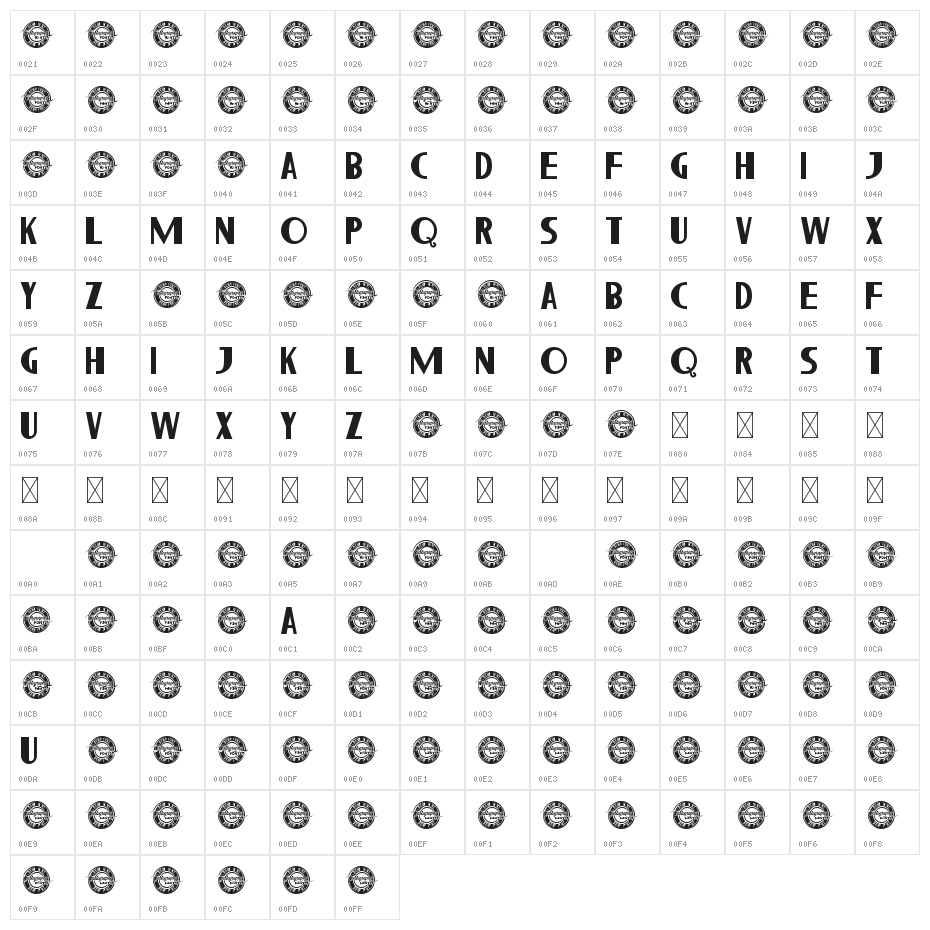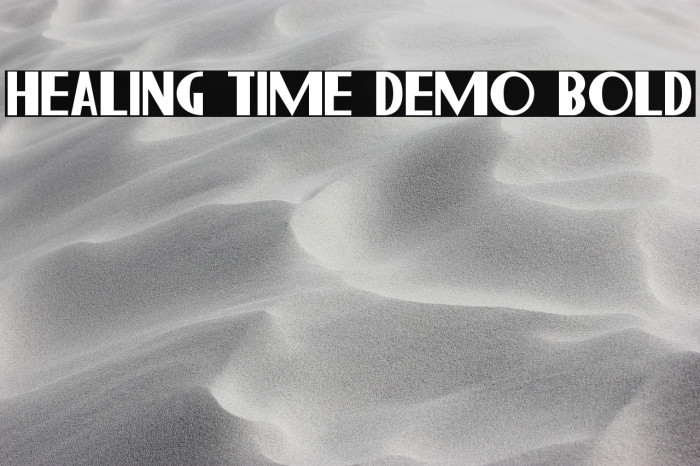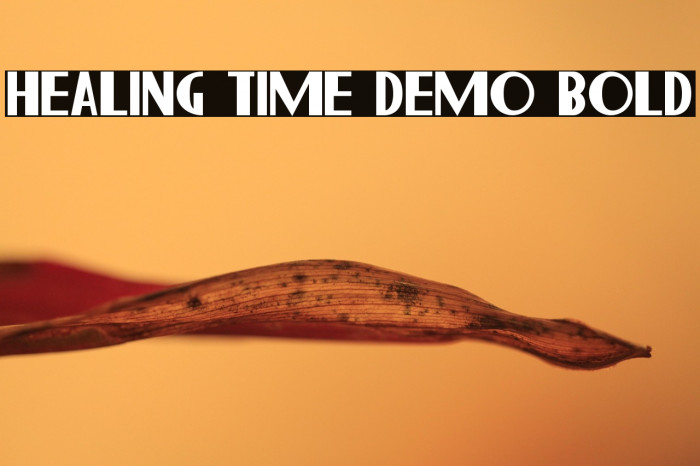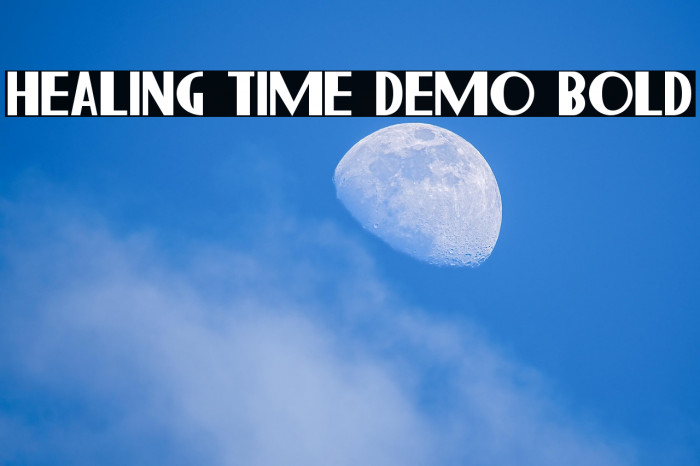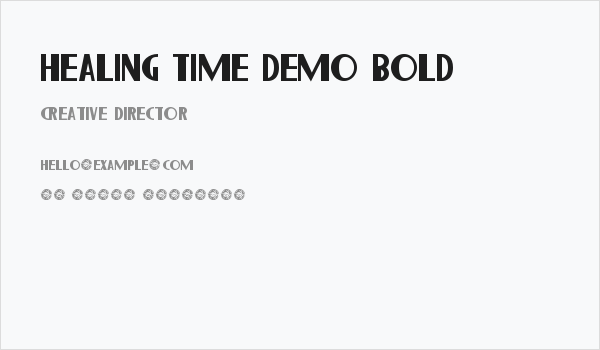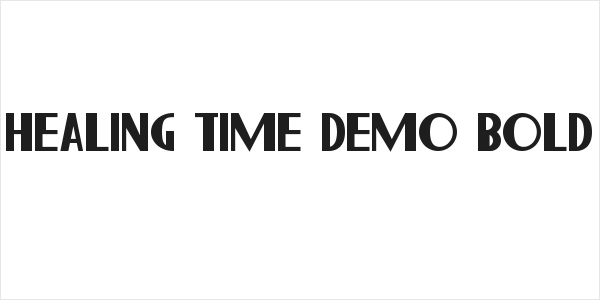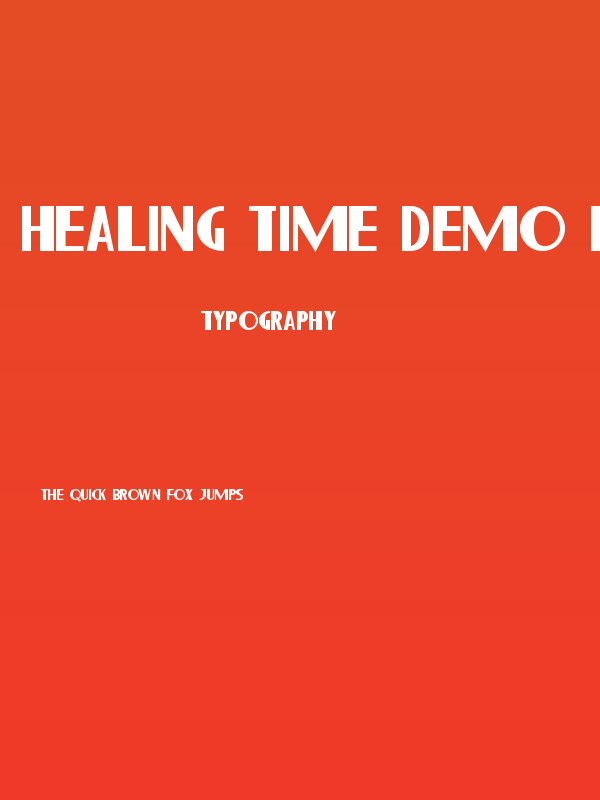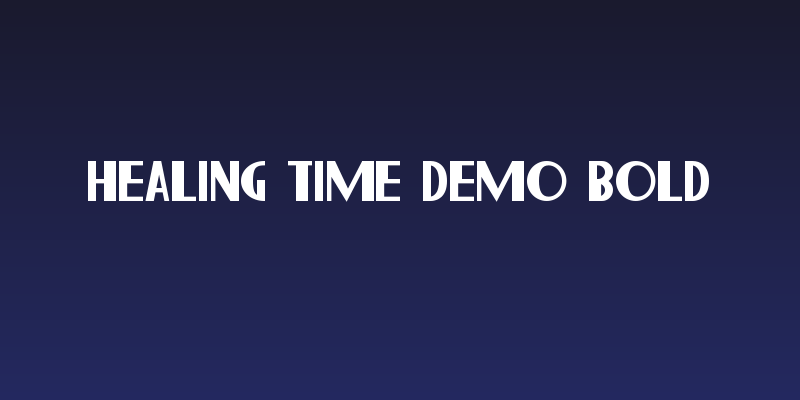
Healing Time Demo Bold Font
Healing Time Demo Bold Description
This font features a bold and striking design, characterized by its thick strokes and sharp angles. The uppercase letters exhibit a strong presence with a slight flair on certain characters, adding a unique touch to the overall appearance. The font maintains a consistent weight throughout, ensuring readability while making a statement. Its geometric shapes and clean lines give it a modern and professional look, suitable for various design applications. The absence of serifs contributes to its contemporary style, making it versatile for both digital and print media. The font's boldness and clarity make it ideal for headlines, logos, and branding materials where impact and legibility are crucial.